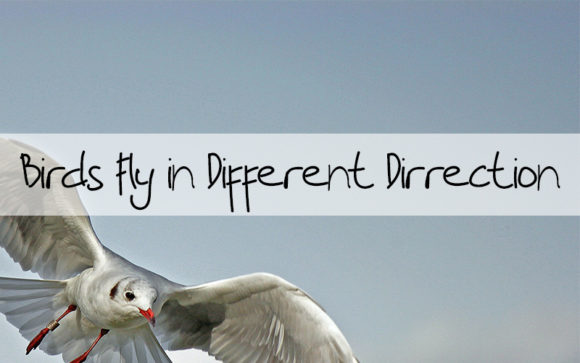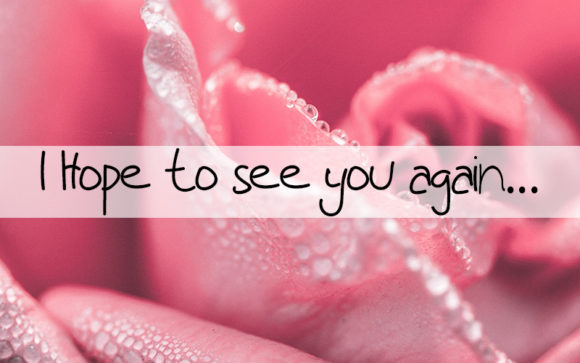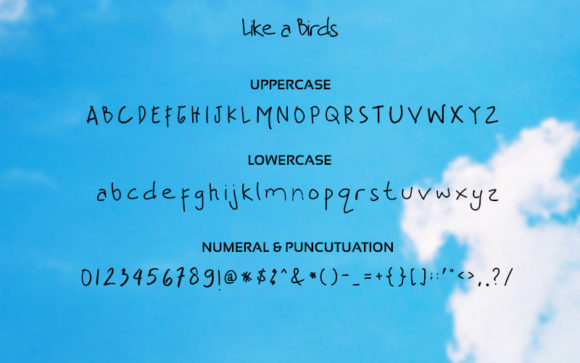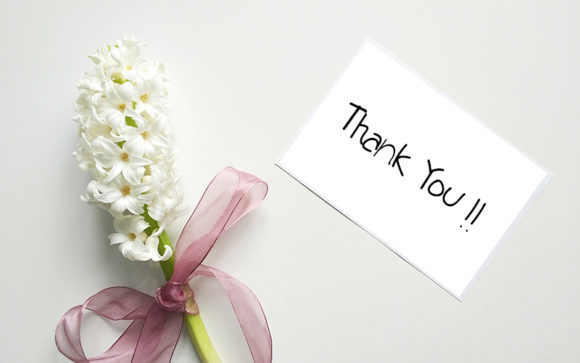
Introduction to Like a Birds Font
Have you ever found yourself in the midst of a creative project, staring blankly at a blank canvas or screen, desperately searching for the perfect font to bring your idea to life? We’ve all been there. The search for the perfect design resource can be overwhelming, especially when it comes to finding a high-quality font that truly captures the essence of your creative vision.
That’s where the Like a Birds Font comes in – a stunning, handwritten font that exudes a friendly and approachable feel. Perfect for Instagram posts, DIY projects, or any other creative endeavor, this font is a valuable asset for designers looking to add a personal touch to their work.
Key Features of Like a Birds Font
- Unique, hand-drawn design with intricate details and subtle textures, setting it apart from other fonts.
- Perfect for use in creative projects, such as branding, advertising, and editorial design, where a distinctive and eye-catching font is desired.
Honest Review: Like a Birds Font
I recently came across the Like a Birds Font, a high-quality design resource that caught my attention. As a designer, I appreciate fonts that can elevate a creative project and make it stand out. In this review, I’ll share my thoughts on what works well and what might not.
- Unique and playful design: The Like a Birds Font has a distinctive look that’s perfect for projects that require a whimsical touch.
- Limited font styles: Compared to other fonts, Like a Birds Font has a relatively limited number of styles, which might not be suitable for projects that require a wide range of font options.
- No bold or italic versions: The font doesn’t offer bold or italic versions, which can be a limitation for designers who need to emphasize certain text.
Overall, I think the Like a Birds Font is a great addition to any designer’s toolkit. While it may have some limitations, its unique design and transparent background make it a valuable resource for creative projects. If you’re looking for a free font that can add a playful touch to your work, I’d definitely recommend giving Like a Birds Font a try.
How to Use Like a Birds Font
The Like a Birds Font is a high-quality design resource ideal for creative projects requiring a unique touch. This font features a transparent background, making it perfect for layering and customization.
Experiment with different font sizes, colors, and layering techniques to get the most out of the Like a Birds Font. You can also combine it with other design elements to create a unique and eye-catching visual effect.
The Like a Birds Font is ideal for various design projects, including social media graphics, blog posts, and marketing materials. Its high-quality design and transparent background make it perfect for layering and customization.